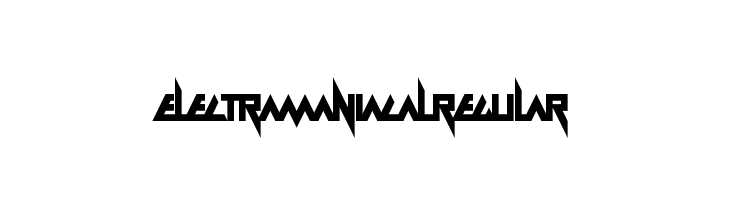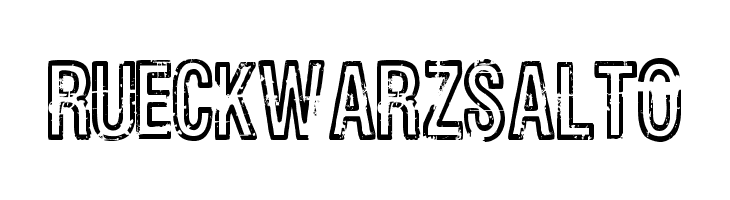
A bold, italic font with dynamic, thick strokes and a slightly condensed style.
A bold, angular font with a futuristic and edgy design.
A bold, geometric font with a strong, industrial style.
A bold, jagged font with a distressed, rebellious style.
A bold, distressed font with a rugged, vintage texture.
A bold, italicized font with strong, dynamic strokes and high contrast.
A bold, distressed font with a grunge, hand-drawn aesthetic.
A bold, brush-stroke font with a dynamic and energetic style.